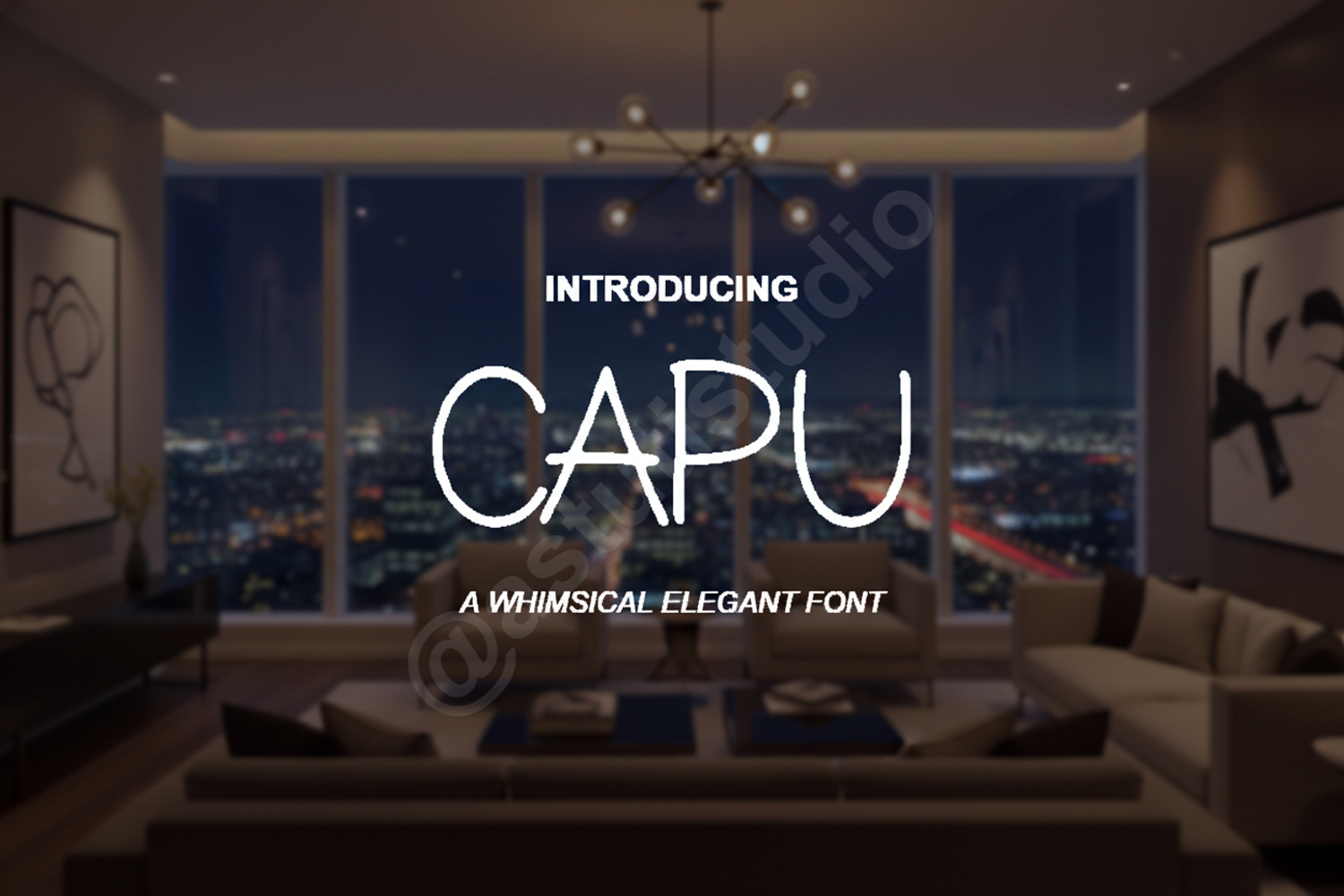
Capu - Modern Geometric Sans Serif
Capu
Capu is a premium geometric sans-serif font that embodies clarity and elegance. Designed with precision, it offers a clean aesthetic that bridges the gap between contemporary minimalism and timeless professional design. Whether you are building a high-end brand or designing a sleek user interface, Capu provides the versatility needed to make your project stand out with sophistication and ease.
- Full set of uppercase and lowercase letters
- Comprehensive numbers, punctuation, and multilingual support
- Corporate Branding and Identity: Create a trustworthy and modern visual presence for any business.
- Minimalist Logo Design: Perfect for clean, iconic logotypes that require high legibility.
- High-end Editorial Layouts: Ideal for fashion magazines, art books, and sophisticated print media.
- Website Headers and UI: Ensures maximum readability and a modern feel for digital platforms.
- Modern Packaging: Adds a touch of luxury and refinement to product labels and boxes.